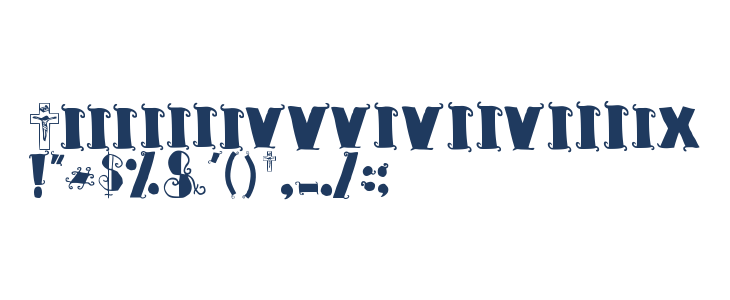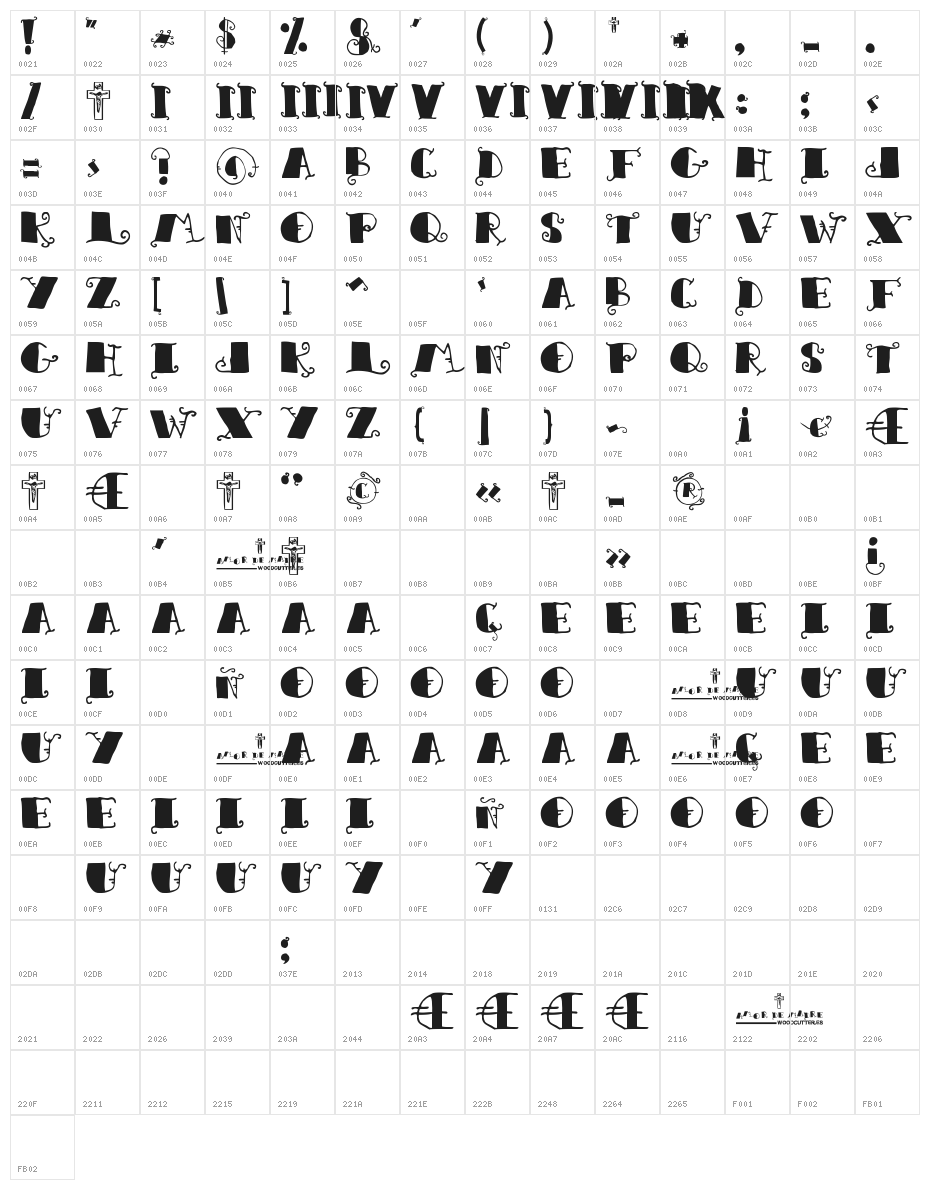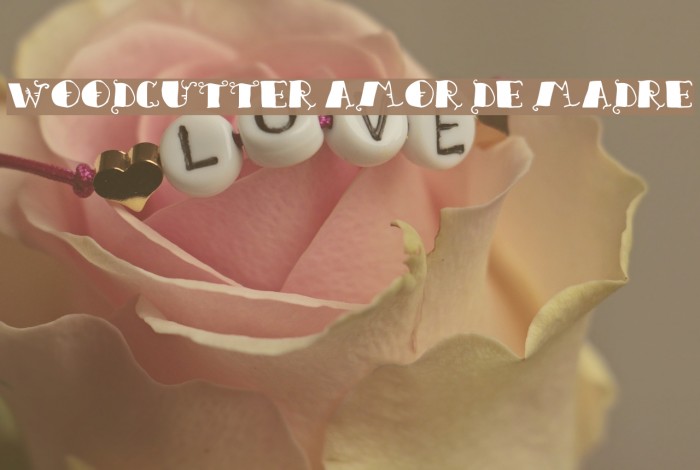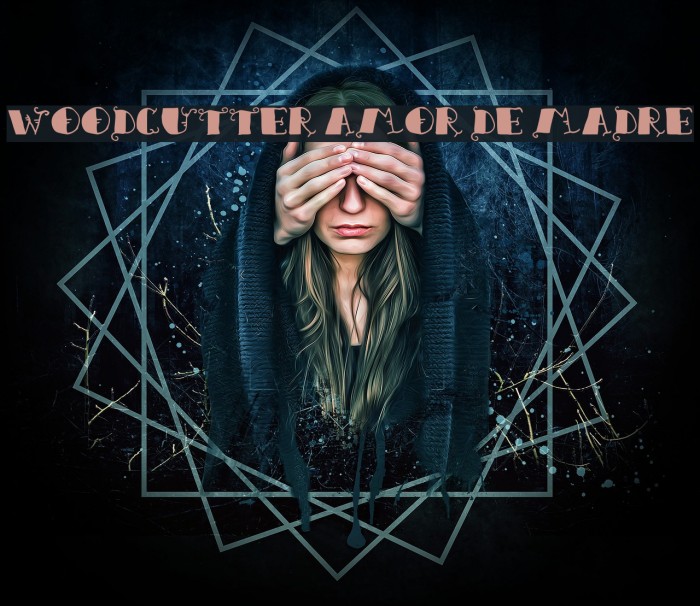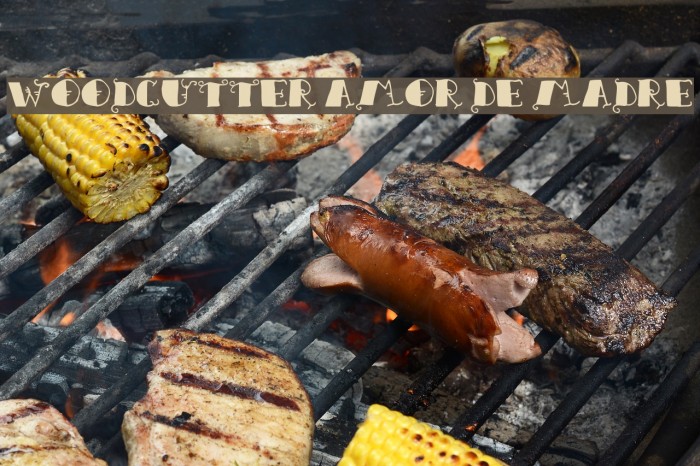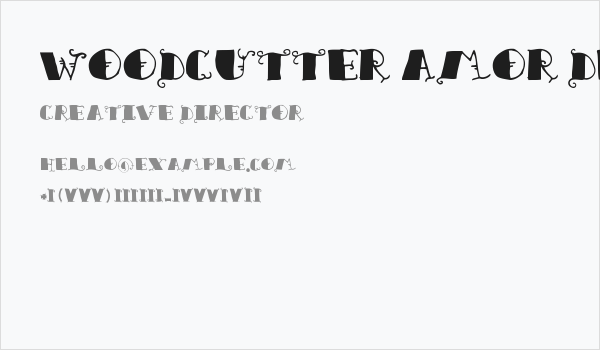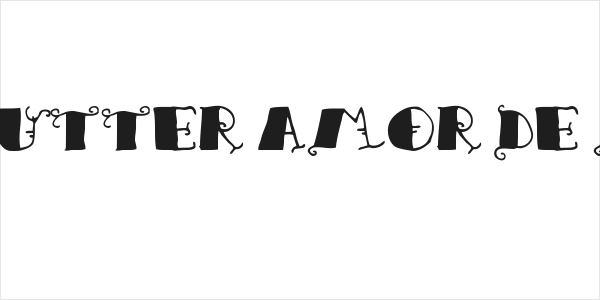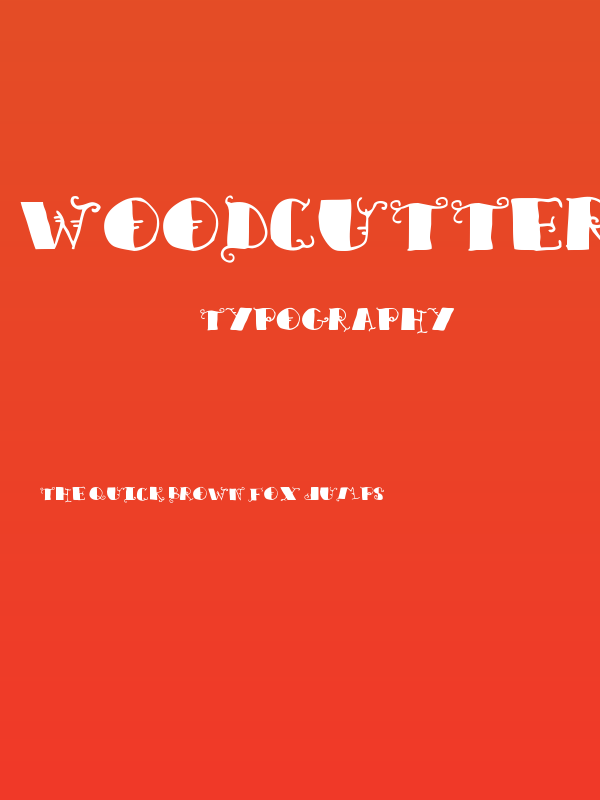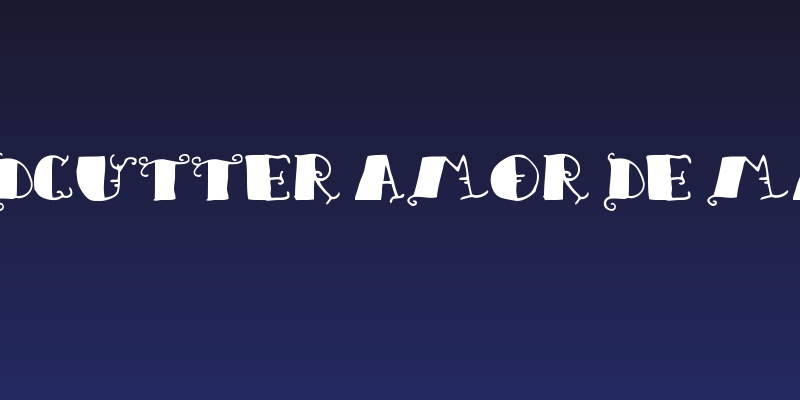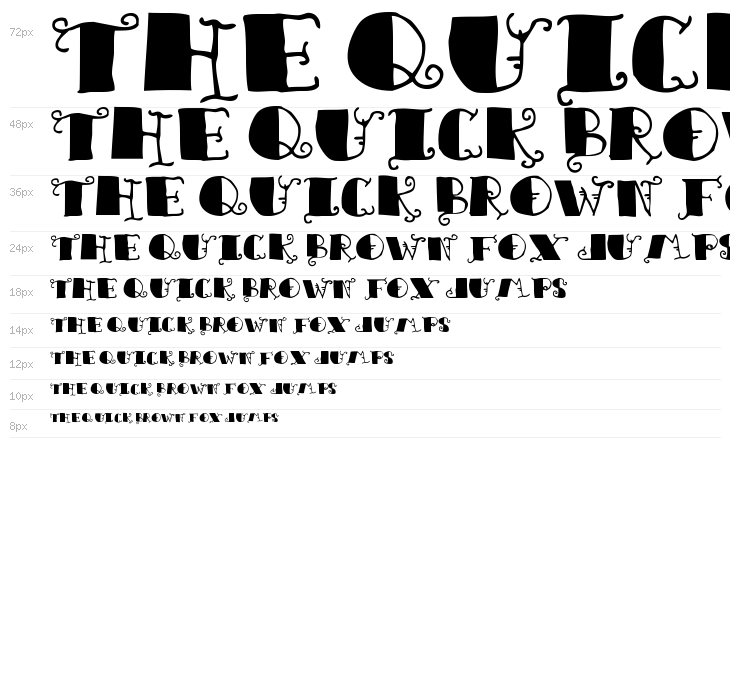
Woodcutter Amor de Madre Font
Woodcutter Amor de Madre Description
This font features a bold and decorative style with intricate swirls and flourishes extending from the characters, giving it a whimsical and artistic appearance. The uppercase letters are particularly ornate, with each character displaying unique embellishments that add to its charm. The lowercase letters maintain the same decorative theme, ensuring consistency throughout the typeface. The numbers and special characters are equally stylized, making this font suitable for creative and expressive designs. Its playful yet elegant design makes it ideal for projects that require a touch of personality and flair.
Use CaseHeadlines, Logos, Invitations
Proposed ProjectsIdeal for wedding invitations, greeting cards, posters, and branding that requires a unique and artistic touch.